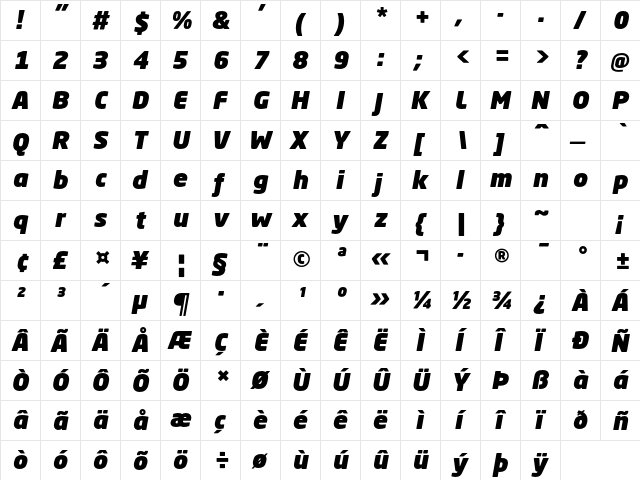
Neo Sans Std Ultra Italic
Design Context for Neo Sans Std Typeface
Neo Sans Std is a composed and adaptable typeface that performs quietly and consistently across a wide range of design contexts. The dynamic lean of this cut emphasises speed and emphasis in any layout.
Pro Tip: Use Neo Sans Std for emphasis, pull quotes, and subheadings where its slanted energy can add rhythm to the layout.